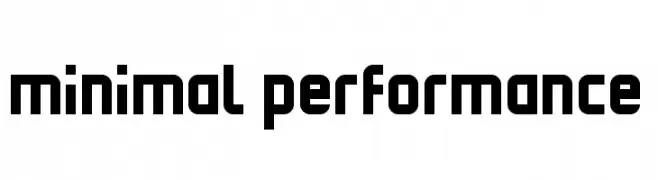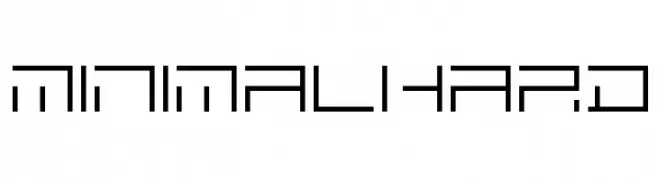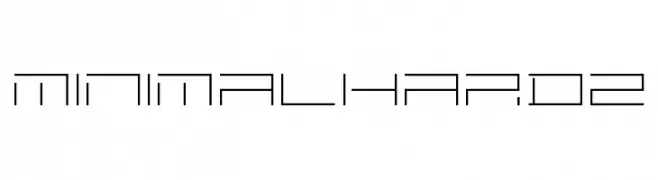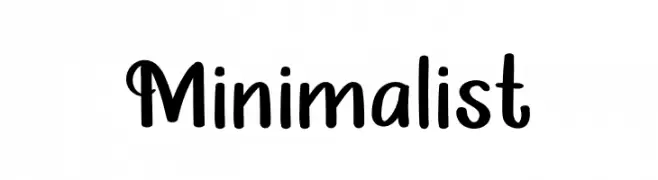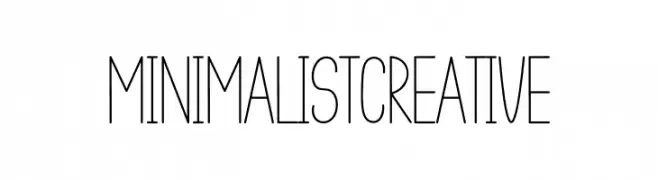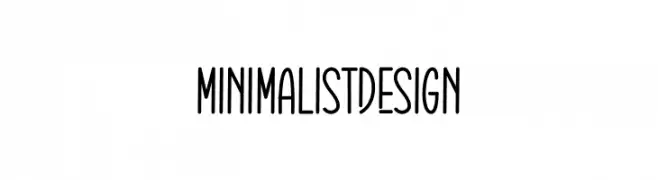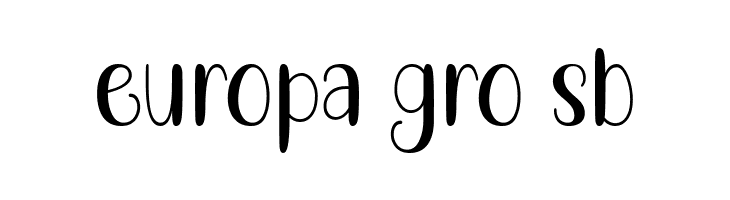
A bold, geometric font with a modern and impactful design.
A sleek, minimalistic font with thin, elongated letterforms and consistent stroke thickness.
A pixelated, grid-based font with a retro digital style.
A playful, rounded font with smooth curves and a friendly appearance.
A minimalist, tall, and narrow font with clean lines and a modern aesthetic.
Playful handwritten-style font with a casual appearance.